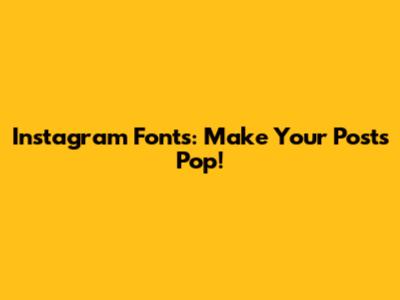
- Grab Attention: In a sea of standard text, a unique font immediately catches the eye.
- Reflect Your Brand: Whether you're going for playful, sophisticated, or edgy, your font can communicate your brand's personality.
- Emphasize Key Messages: Use different fonts to highlight important information in your captions or bio.
- Stand Out: Let's be real, who wants to look like everyone else? Unique fonts help you differentiate yourself.
- Find a Font Generator: There are tons of free font generators online. Just search for "Instagram font generator" on Google, and you'll find plenty of options. Some popular ones include LingoJam, Cool Fonts, and FontGet.
- Type Your Text: Once you're on a font generator website, you'll see a text box where you can type your desired text. This is where you'll write your caption, bio text, or whatever you want to use with a different font.
- Choose Your Font: As you type, the font generator will display your text in a variety of different fonts. Scroll through the options and find one that you like. For that "se ve bien mami" look, consider something bold, cursive, or even slightly edgy.
- Copy and Paste: Once you've found the perfect font, simply copy the text from the font generator.
- Paste into Instagram: Head over to Instagram and paste the text into your caption, bio, or comment. Voilà! You've successfully changed your font.
- Bold Sans-Serif: A strong, clean font that exudes confidence. Think impact and power.
- Playful Script: A cursive font with a touch of fun and flirtiness. Adds a personal and stylish touch.
- Modern Serif: A sophisticated font that balances elegance and modernity. Perfect for a polished look.
- Groovy Fonts: These fonts provide a retro and fun vibe. These include bubble fonts and psychedelic fonts.
- Edgy Gothic: A bold and dark font that adds an unexpected twist. For those who want to make a statement.
- Instagram Bio: Your bio is prime real estate! Use a unique font to make your bio stand out and communicate your personality.
- Instagram Captions: Add flair to your captions by using different fonts to highlight important points or add emphasis. Think about using one font for the main text and another for a catchy tagline.
- Instagram Stories: While Instagram Stories do offer some built-in font options, you can still use font generators to create even more unique and eye-catching text for your stories. Copy and paste your custom font into the story text box.
- Comments and DMs: Surprise your friends and followers with unique fonts in your comments and direct messages. It's a fun way to add a personal touch to your interactions.
- Screen Readers: People who are visually impaired often use screen readers to access online content. These programs read the text aloud, but they might not be able to interpret fancy Unicode fonts correctly.
- Readability: Some fonts, while stylish, can be difficult to read, especially for people with dyslexia or other visual impairments.
- Use fonts sparingly: Don't overuse fancy fonts, and always provide a plain text alternative if possible.
- Choose readable fonts: Opt for fonts that are clear and easy to read, even if they're not the most visually striking.
- Consider your audience: Think about the needs of your audience and choose fonts that will be accessible to everyone.
Hey guys! Want to make your Instagram posts really stand out? Of course, you do! Let's dive into the world of Instagram fonts and how you can use them to add a unique flair to your profile, especially if you're going for that "se ve bien mami" vibe. We'll cover everything from using different font generators to incorporating them seamlessly into your captions and bio. Get ready to level up your Insta game!
Why Bother with Different Fonts?
Okay, so why should you even care about changing your Instagram font? Well, think of it this way: Instagram is a visual platform, and your font is part of that visual identity. Using a different font can help you:
Imagine you're trying to promote a new product. A bold, eye-catching font can make your announcement unmissable. Or, if you're sharing a heartfelt message, a delicate, elegant font can add a touch of sincerity. The possibilities are endless!